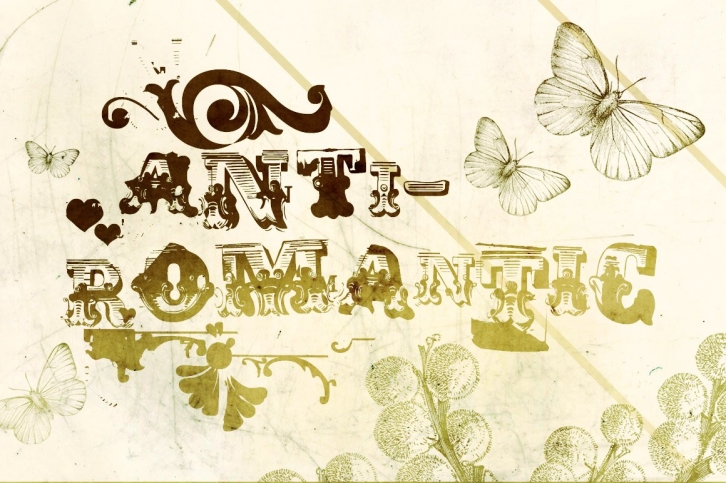
Anti-Romantic is a romantic, circus, grunge ornamental font family! It is based on the 1800's Wood Type fonts and it comes with 4 typeface styles: Anti-Romantic Regular, Small Caps, Displaced and X.